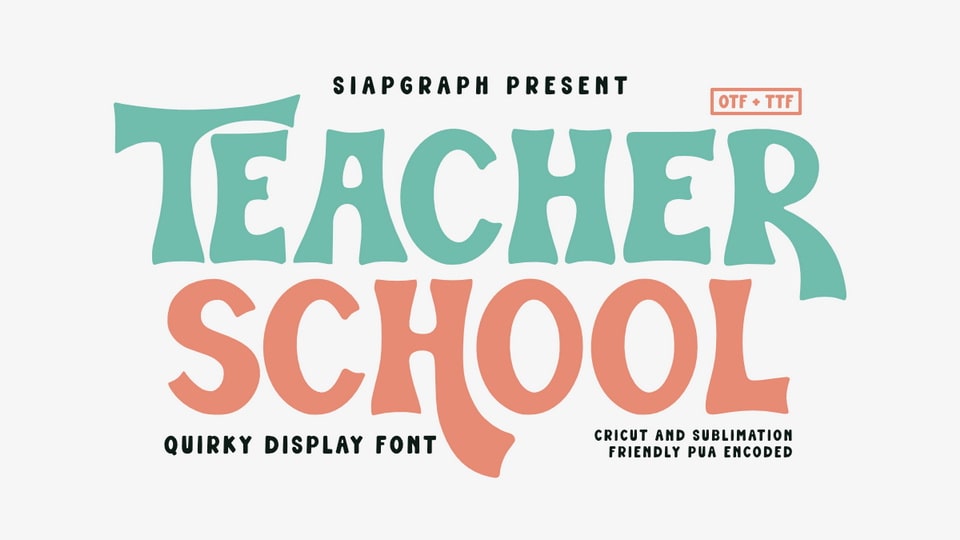
Download Teacher School font, a quirky display typeface that is fun and versatile, perfect for all educational, kids, Halloween, and craft-themed designs.
Designer: SiapGraph